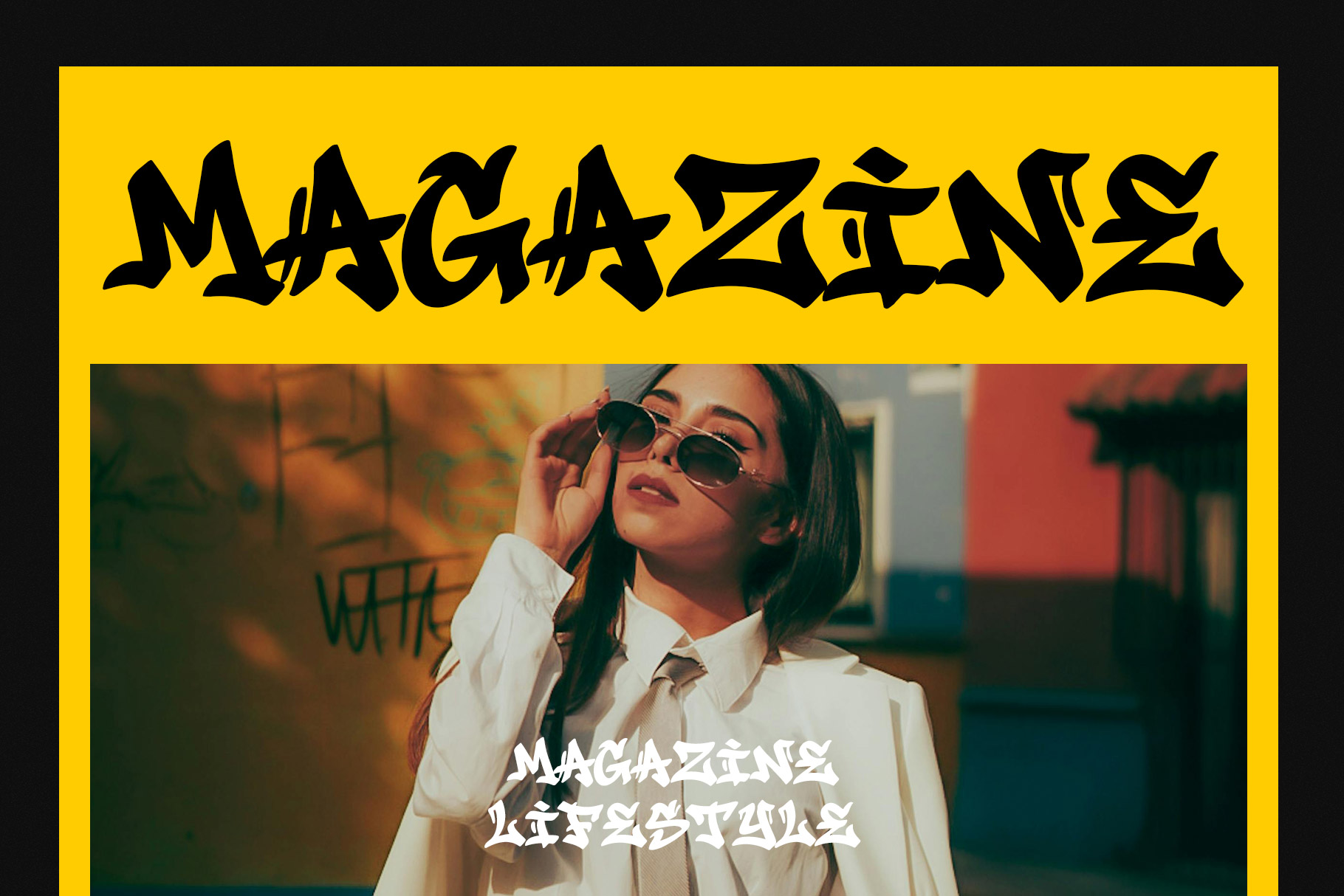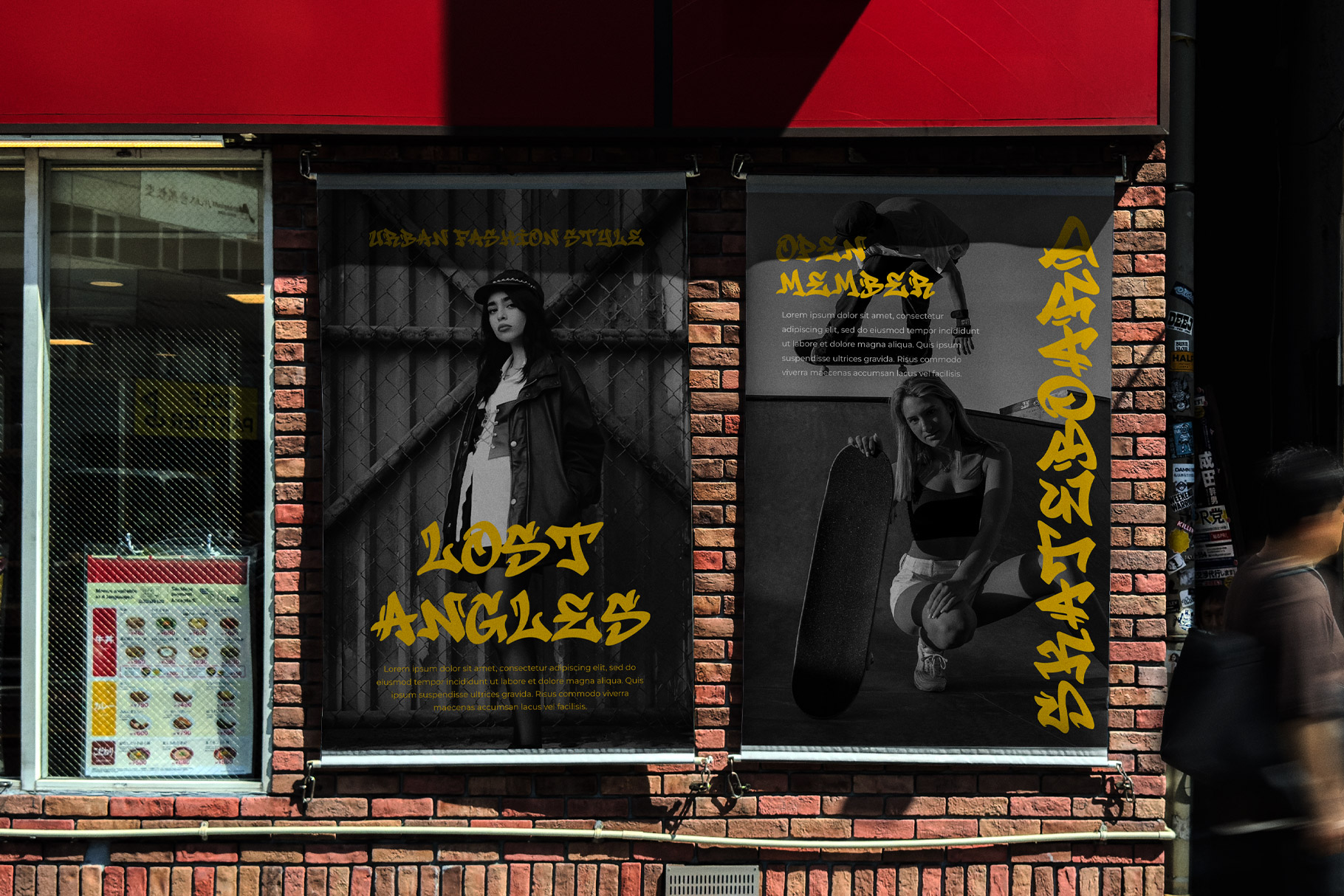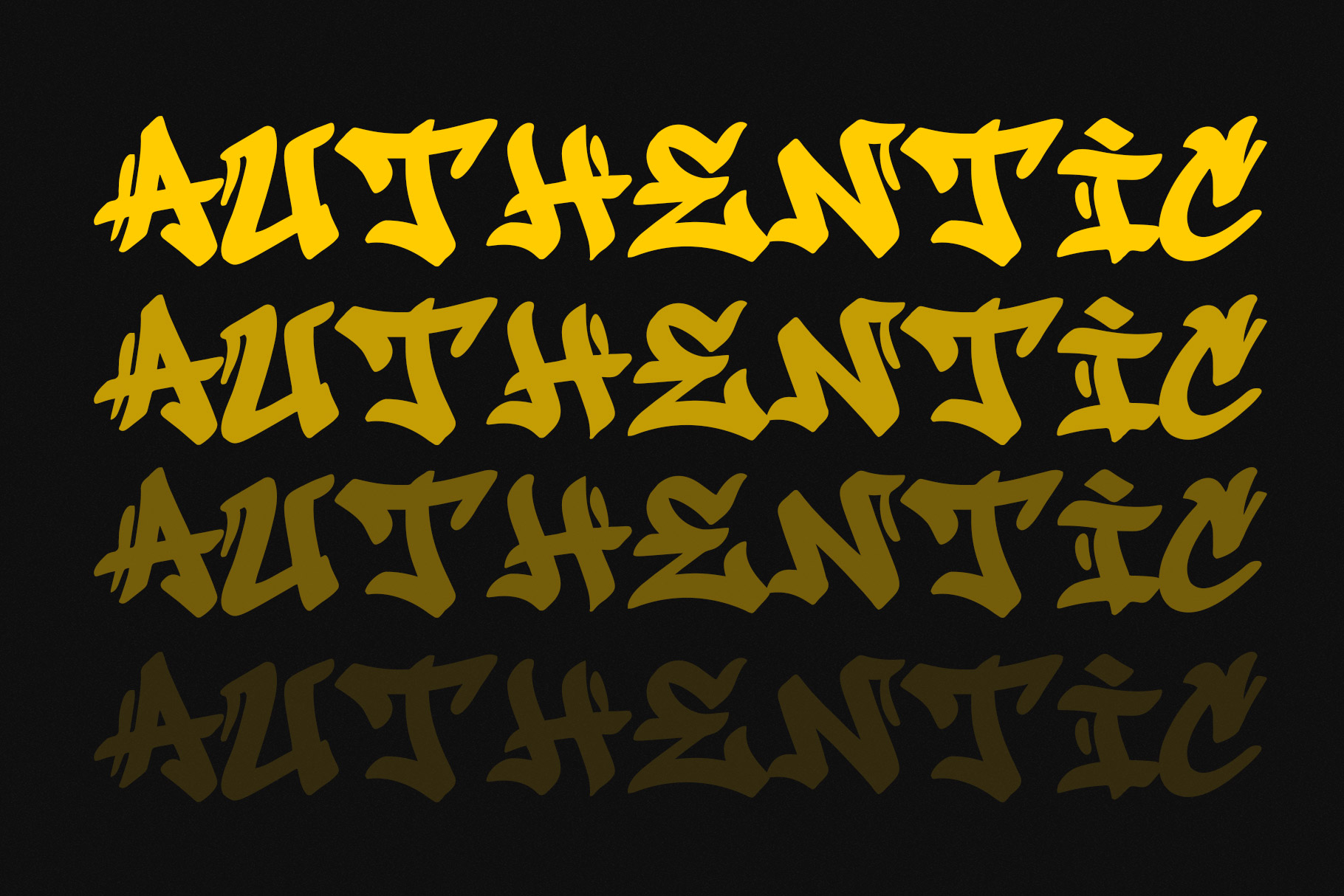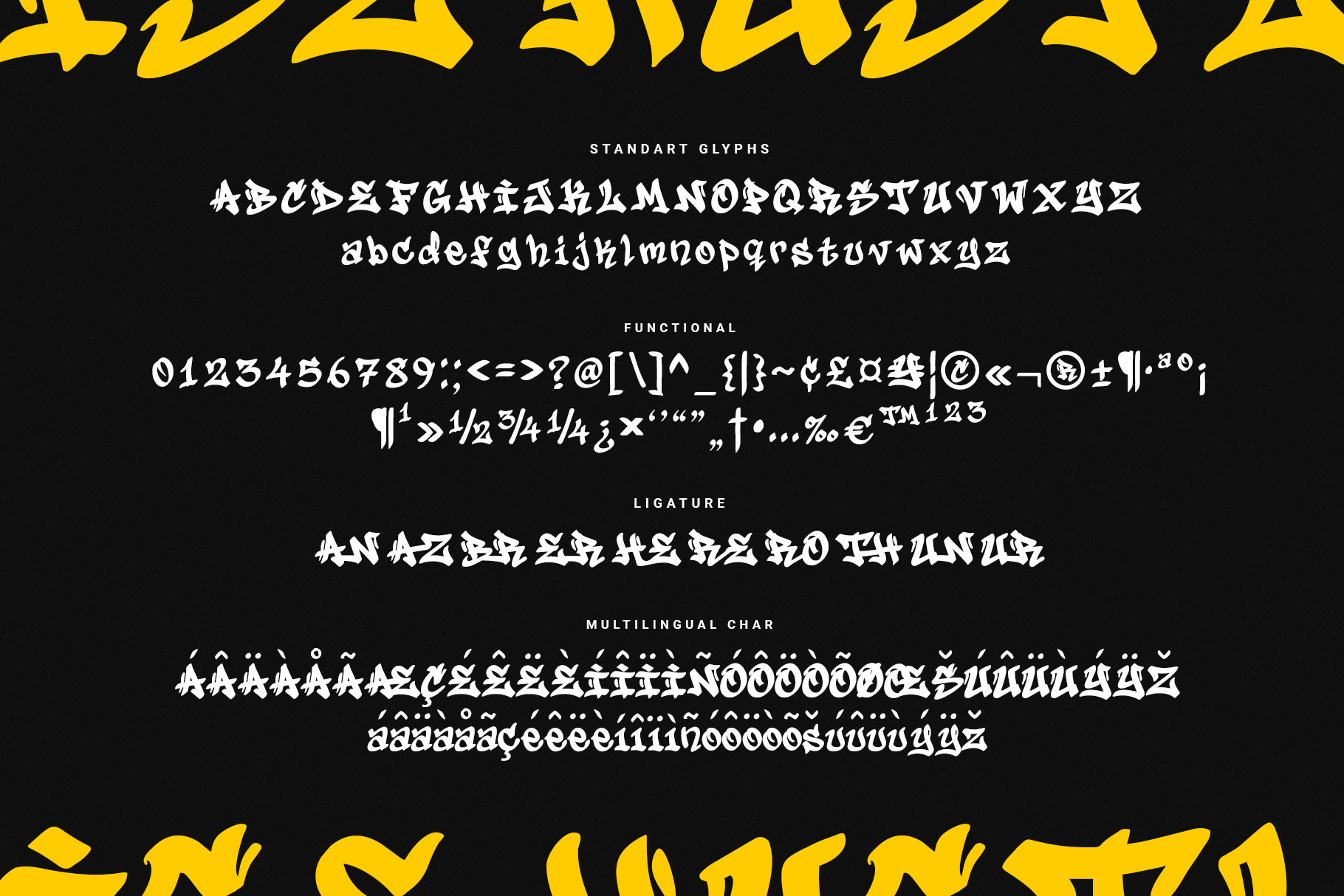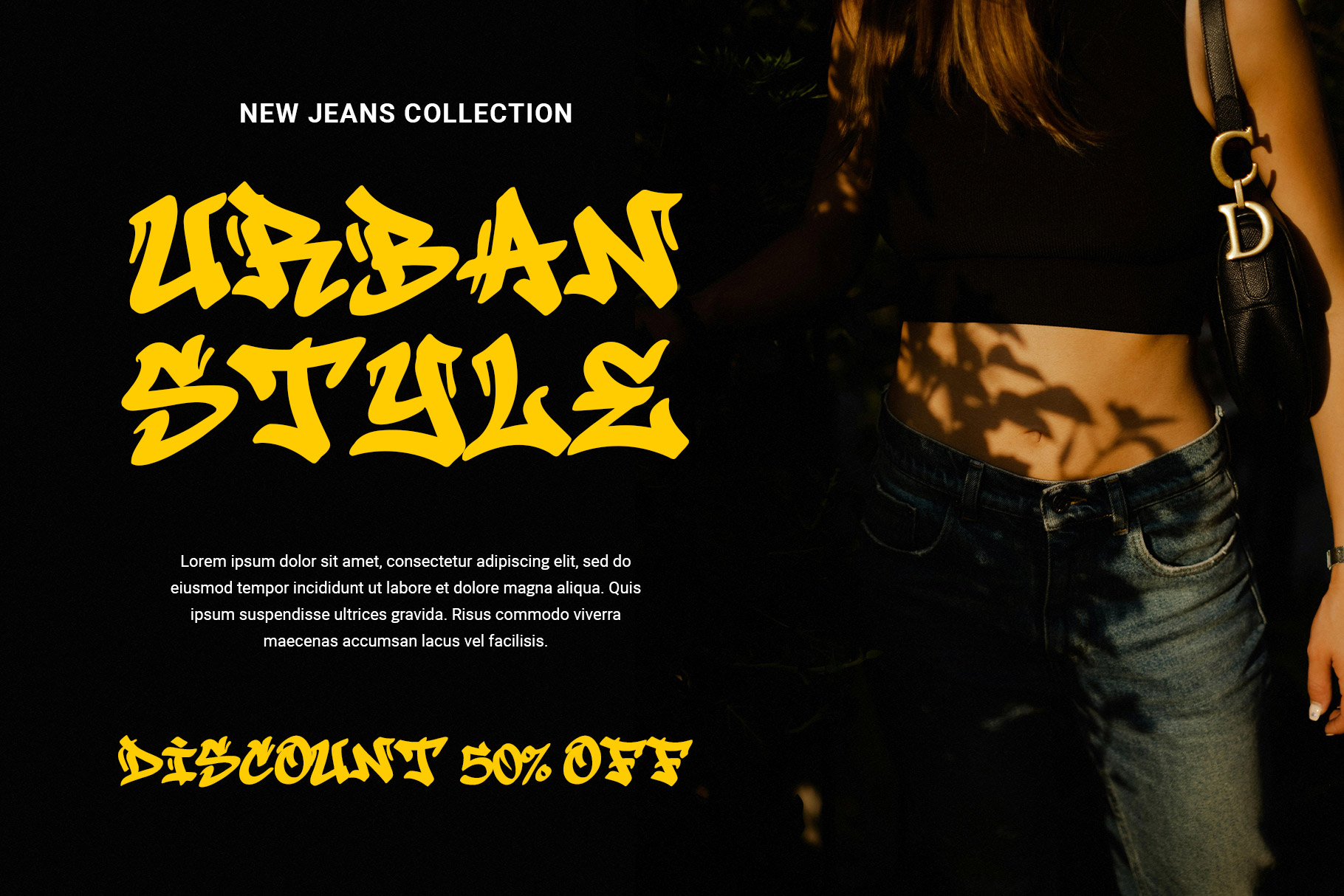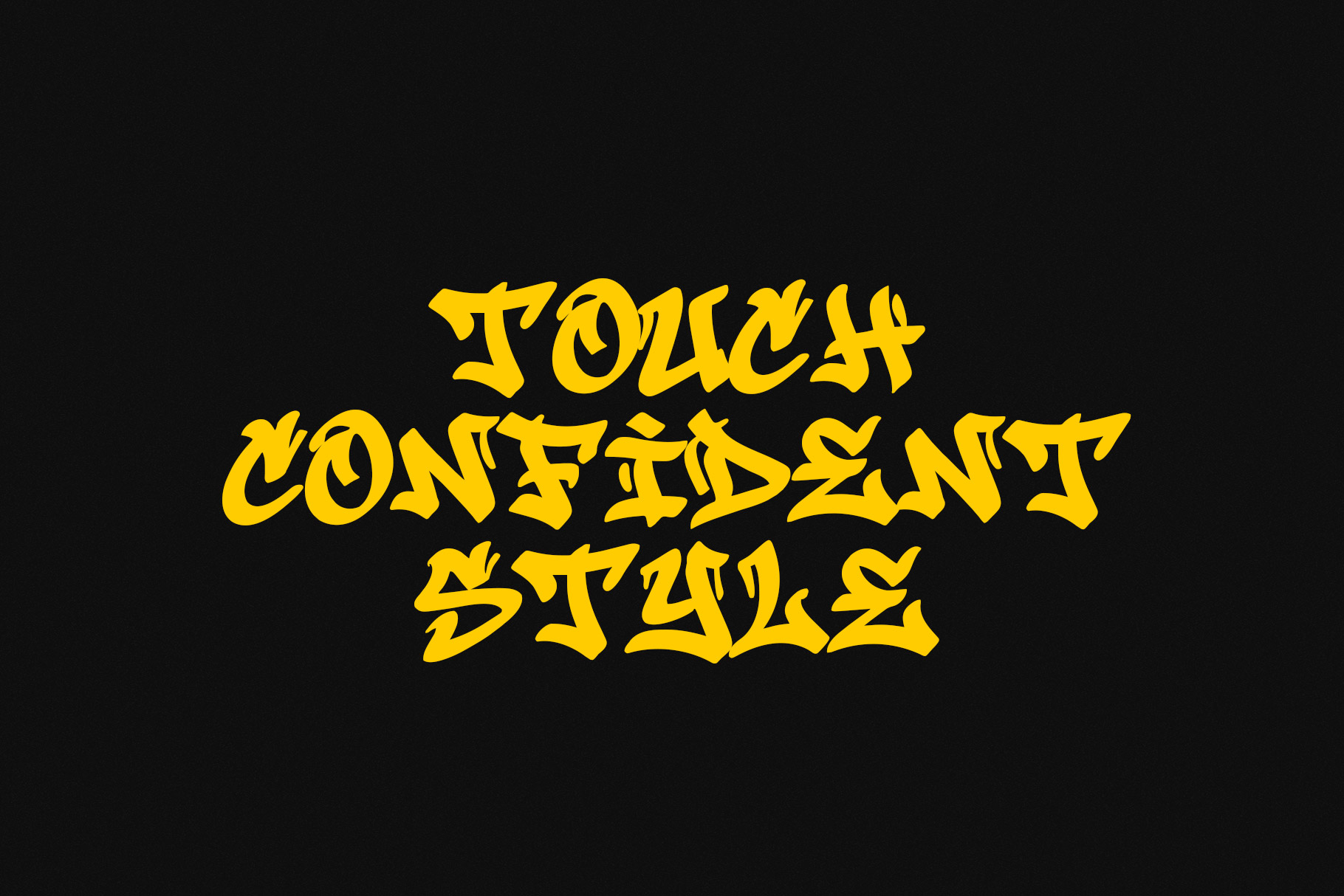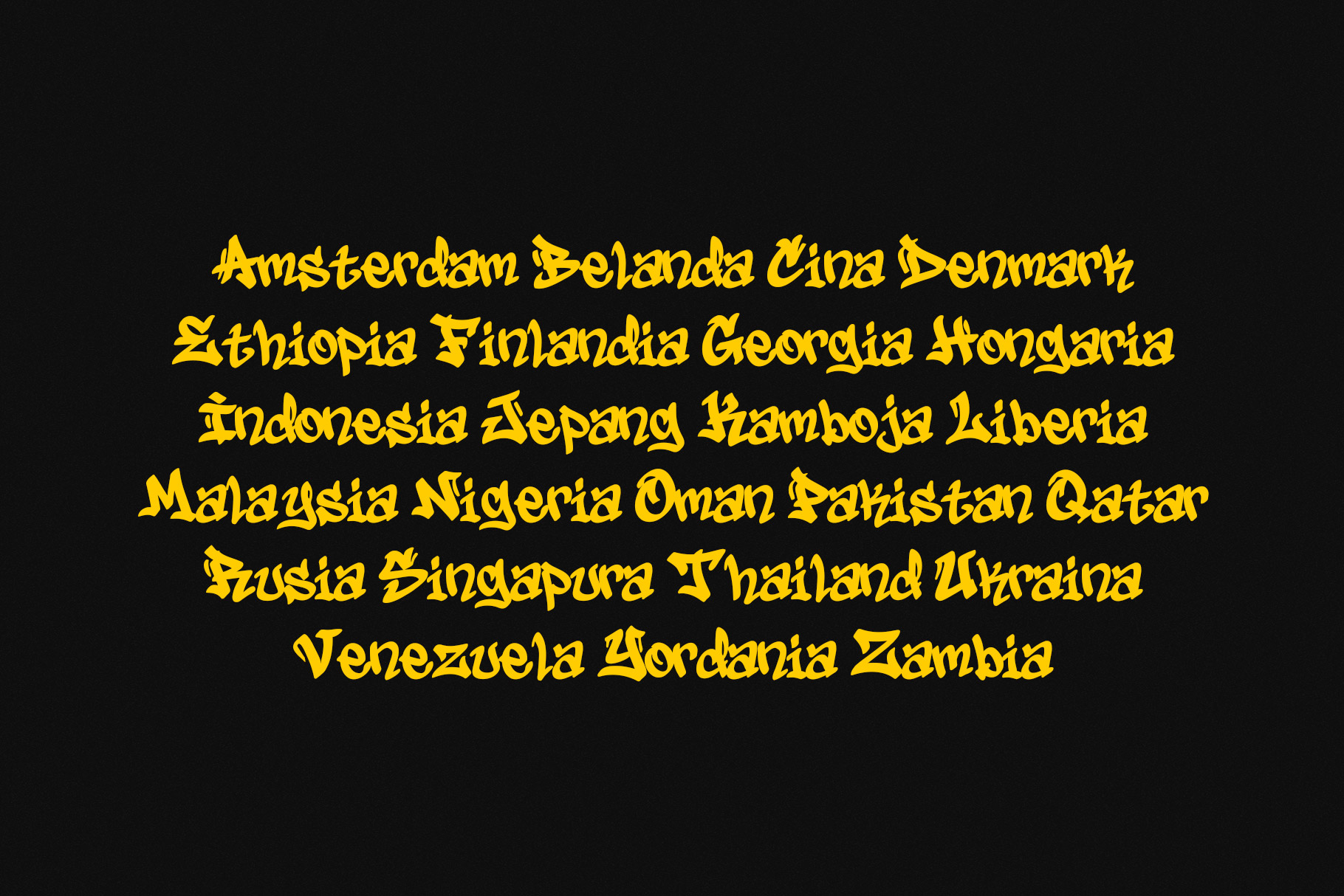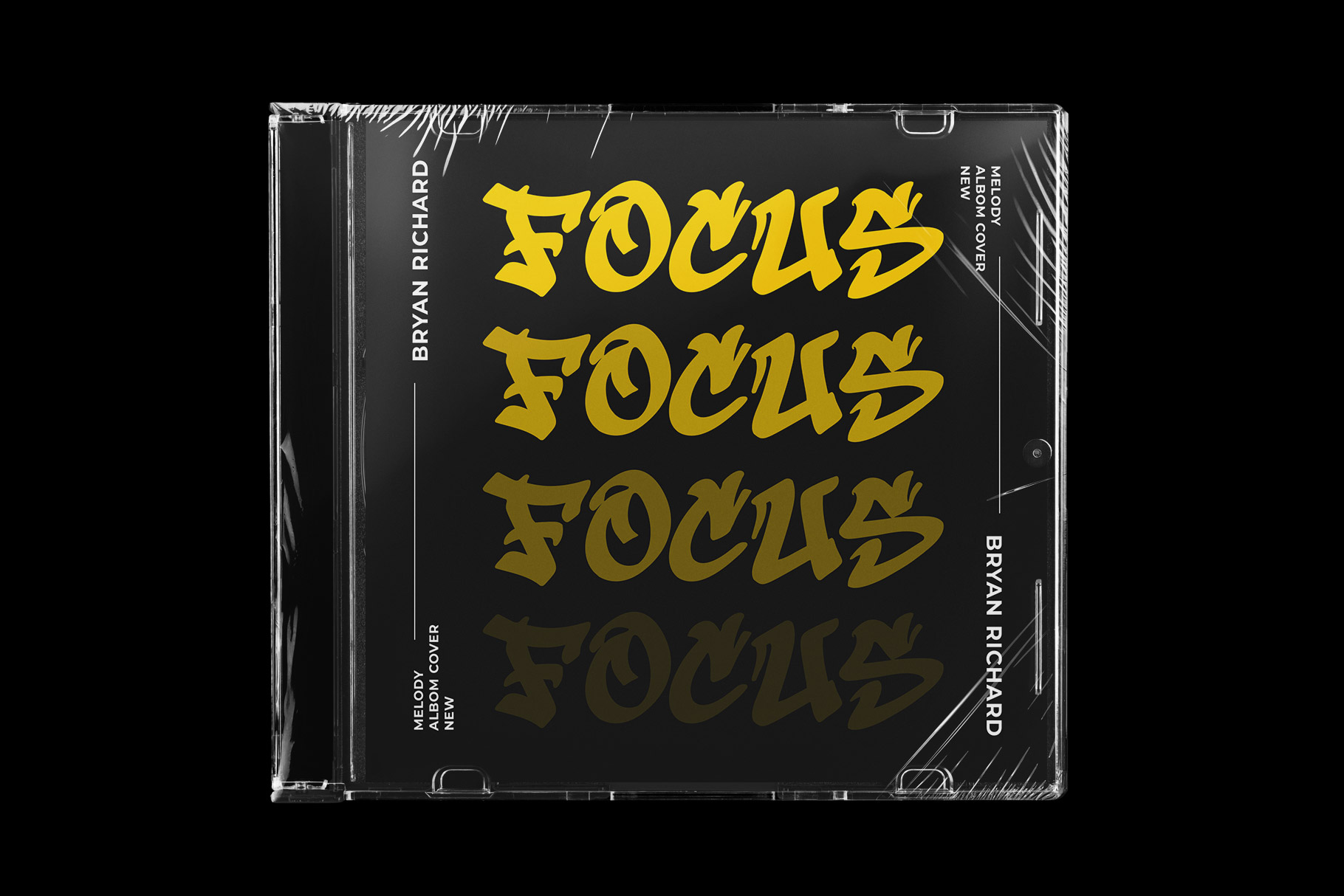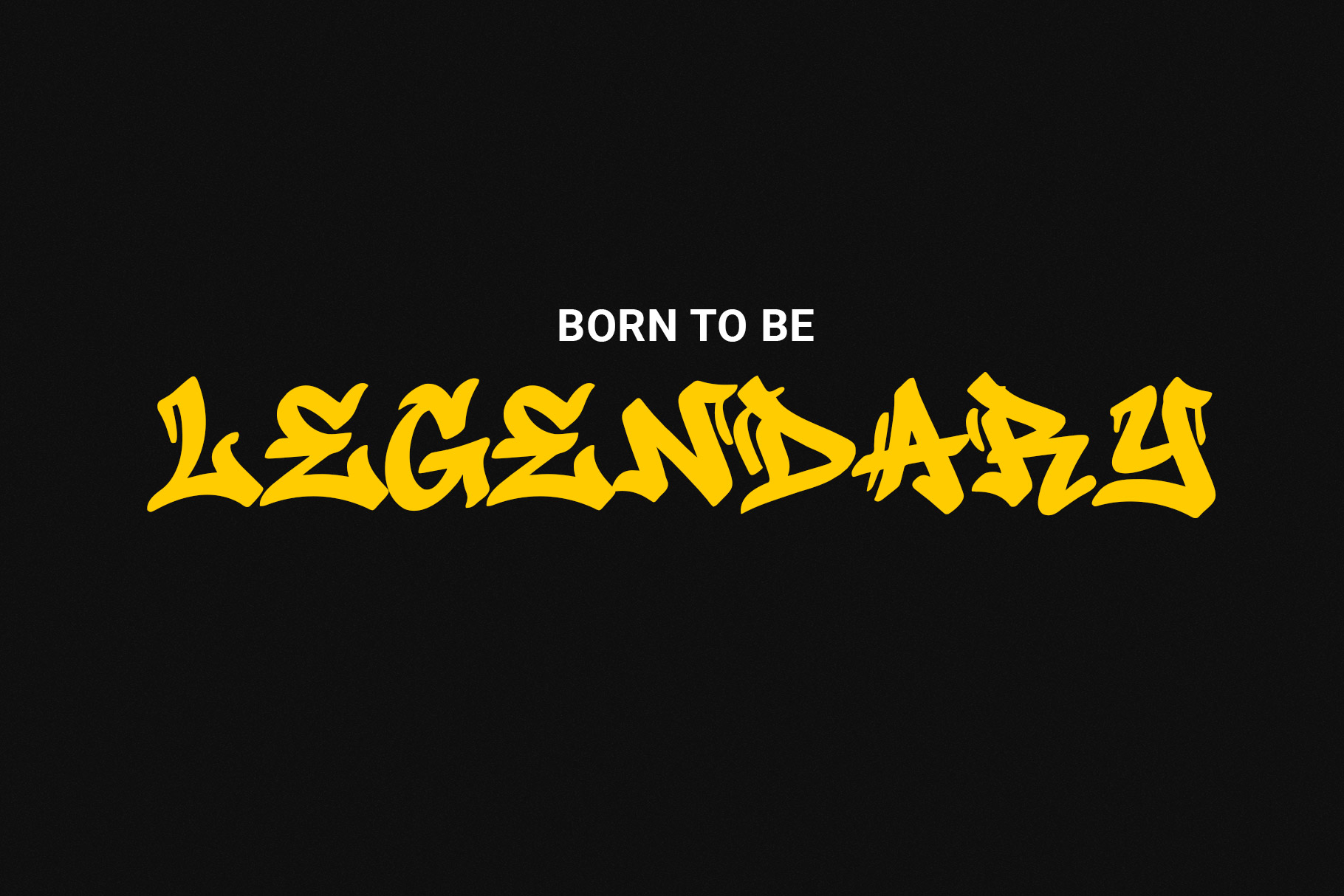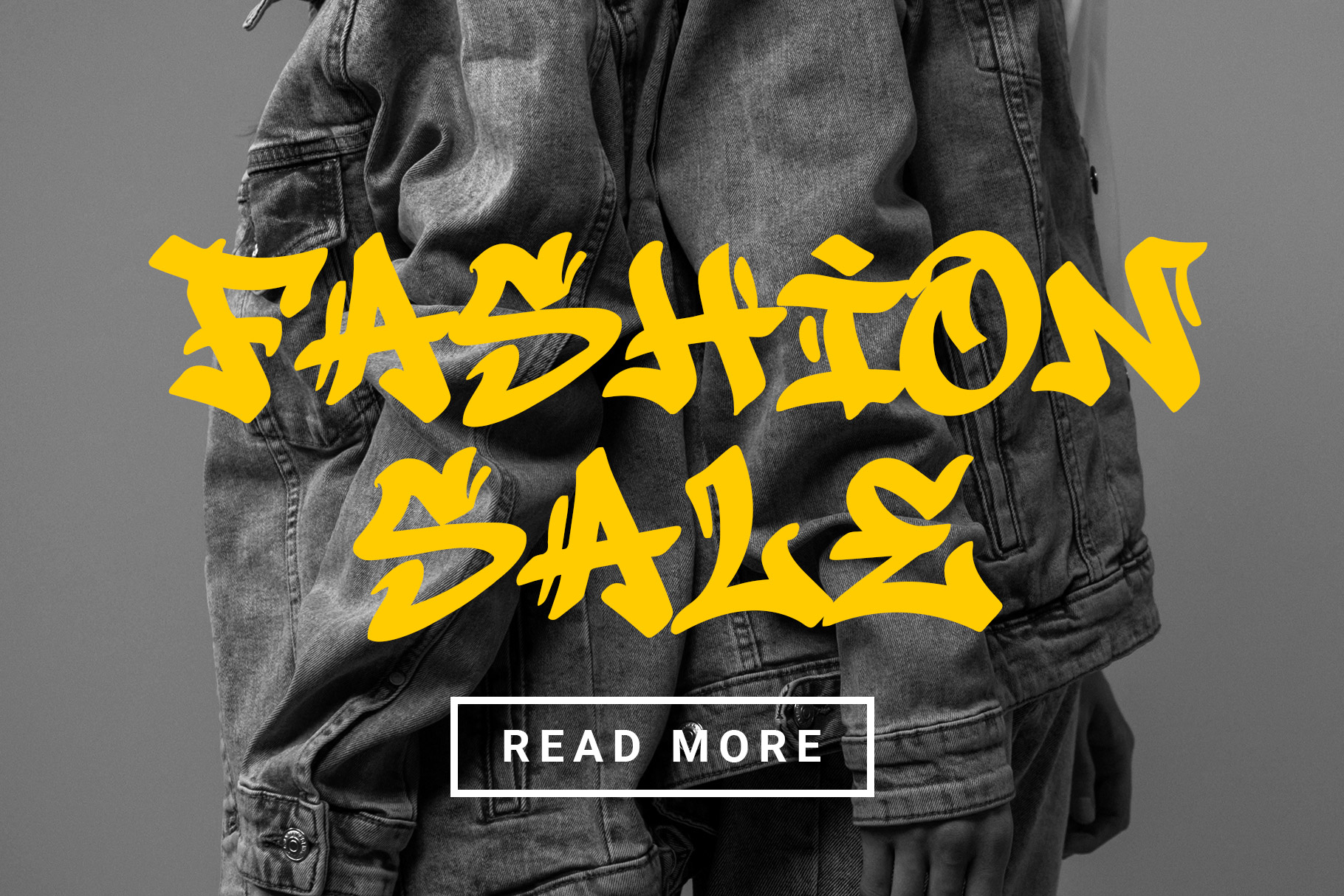
Rise Hustle Regular
Rise Hustle Italic
Rise Hustle is a visual font shaped by the rhythm of the city. Inspired by street culture, architecture, graffiti, and modern design, this typeface style captures the raw, expressive energy of urban life.
Rise Hustle is a perfectly choice for any creative endeavor, creating, modern, lifestyle design such as logotype, title, cover, branding, display and magazine, social media posts, advertisements, printed quotes, product packaging, product designs, labels, watermarks, special events and any other project with urban touch.
Rise Hustle Urban Display Font